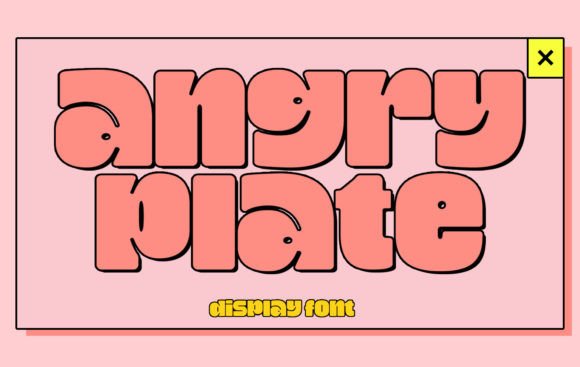
Immerse yourself in the "Angry Plate Font" - the essence of sophistication and charm, gracefully adorning your digital creations with a classic touch. This display font embodies elegance and femininity, rendered with meticulous care to evoke a timeless charm.
Unleash your creativity with a diverse range of projects, from logos that speak volumes to branding that exudes professionalism, from invitations that capture hearts to stationery that leaves a lasting impression. Let "Angry Plate" guide you as you craft wedding designs that shimmer with romance, social media posts that ignite engagement, and advertisements that demand attention. Printed quotes will come alive with an artistic flair, while product packaging and labels will elevate your offerings with a touch of refinement. The possibilities are limitless, bound only by your imagination.
As a display font, "Angry Plate" seamlessly adapts to a multitude of purposes, making it the perfect companion for your creative journey. Embark on a typographic adventure, transforming photographs into works of art, adding a personal touch to watermarks, or creating a lasting impact at special events. With "Angry Plate" as your font of choice, every project is destined to leave an indelible mark.
Embrace the legacy of "Angry Plate", a font meticulously crafted by INKSUNâ„¢, renowned for creating typographic masterpieces. Experience the beauty of an alternate stylist, adding a layer of versatility to your designs. Each glyph has been carefully designed to exude elegance, ensuring that your creations captivate and inspire.